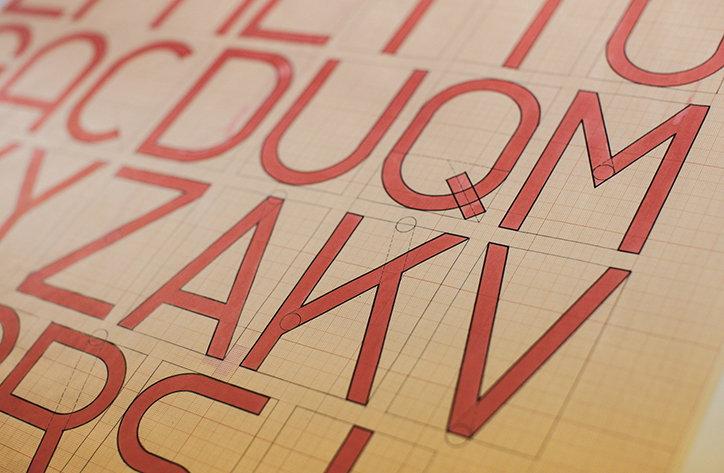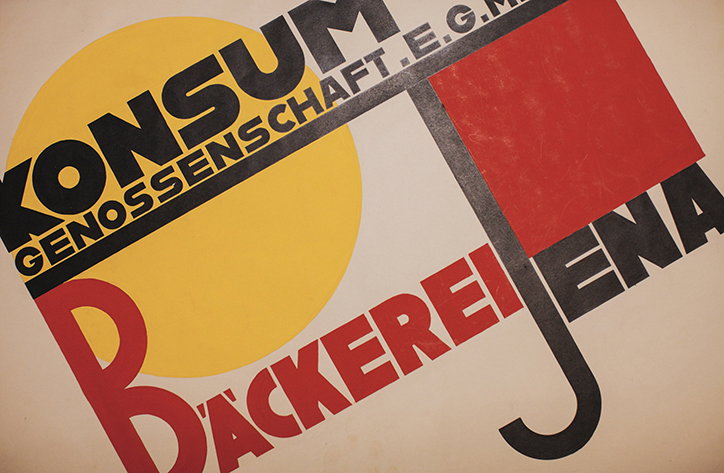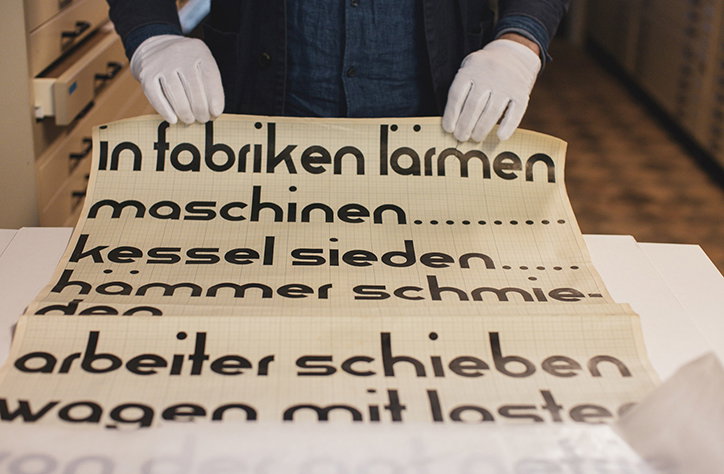
Erik Spiekermann brings five unfinished fonts from Bauhaus design masters to life with Adobe
Bauhaus Dessau is legendary. Despite the art school being open for solely 14 years, the school birthed some of the world’s most influential designers and is still recognised for its strong influences on design and art today. The world-famous school of art and design was closed in 1932 by the National Socialist Party, rendering much unfinished work seemingly lost for good.
Now revered typographer Erik Spiekermann, in collaboration with Adobe’s The Lost Alphabets of Bauhaus Dessau project, is breathing fresh life into the old letter fragments and typography sketches from the Bauhaus Dessau archives by turning them into fully functional digital font sets.
Erik headed up the process of developing these early typeface designs into Typekit downloadable fonts, working with an international team of typography professionals and design students to calculate detailed shape probabilities to best interpret the unfinished work and bring the fonts to their most technically “accurate” conclusion.
With this probability data, Erik and his team used Illustrator to complete and digitise the font sets — two of which are available to download using Typekit from today, with another three of the reimagined Bauhaus masters typefaces to follow in the next few months.